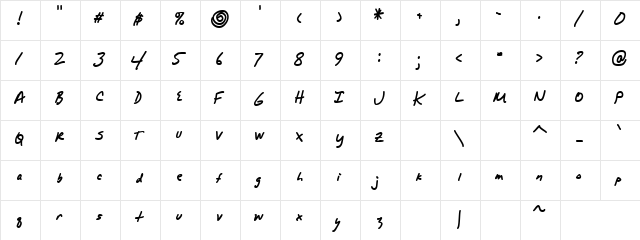
Baby Regular
Design Context for Baby Typeface
Baby takes a measured approach to typography — its balanced proportions and neutral character make it a reliable workhorse for both digital and print work.
Pro Tip: Use Baby in both headline and body roles to test its range before committing to a single application.